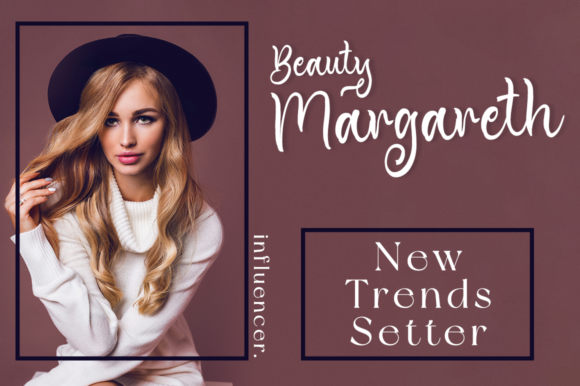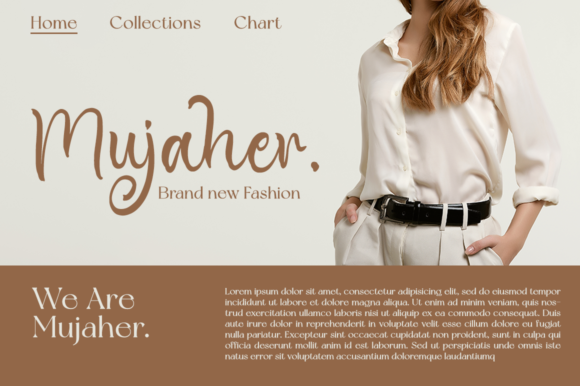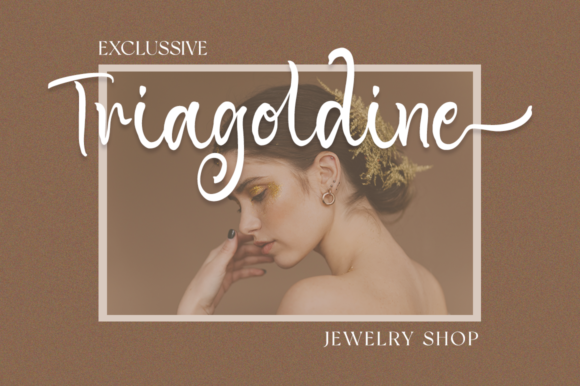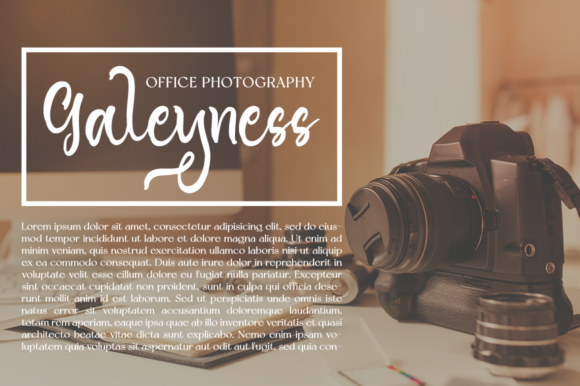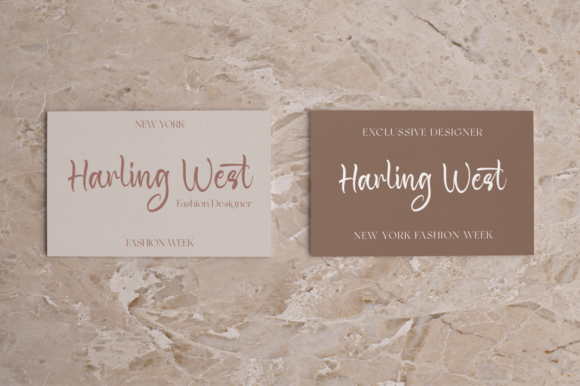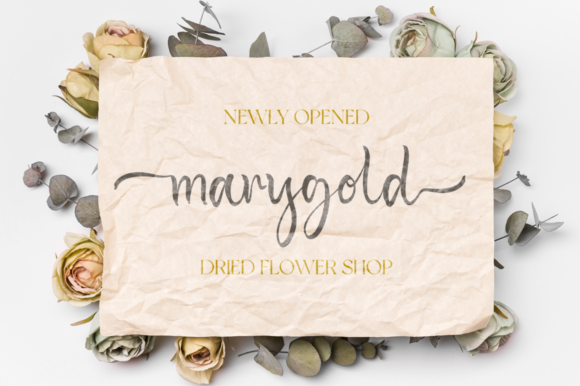
Introduction to Domiska Font
Have you ever stared at a blank page, eager to bring a creative project to life, only to be stumped by the perfect font? The search can be overwhelming, but what if I told you there’s a solution that’s elegant, refined, and effortlessly stylish? Meet the Domiska Font, a game-changer for designers seeking high-quality typography.
This beautiful script font is more than just a pretty face – it’s a versatile design resource that can elevate any creative project, from logos and branding to invitations and social media posts. With its modern look and feel, the Domiska Font is the perfect choice for designers who want to make a lasting impression. And the best part? It’s PUA encoded, making it easy to access all glyphs and swashes with just a few clicks.
Key Features of Domiska Font
- High-quality, unique font design suitable for creative projects and design resources.
- Designed with a clean and modern aesthetic, making it perfect for a variety of design projects.
Honest Review: Domiska Font
I recently had the chance to work with the Domiska Font, and I’m excited to share my honest thoughts on this design resource.
The Domiska Font is a high-quality font that I’ve found to be incredibly versatile. It’s perfect for any creative project that requires a unique touch.
- ✨ The font’s high-quality design makes it perfect for print materials, such as business cards and brochures.
- ✨ The font’s transparent background makes it easy to use in digital designs, like presentations and websites.
- ✨ The font’s wide range of weights and styles makes it easy to customize to fit any project’s needs.
- ⚠️ The font may not be suitable for projects that require a very modern or futuristic look.
- ⚠️ The font may not be as versatile as some other fonts on the market, but it still packs a punch.
Overall, I’m really impressed with the Domiska Font. It’s a great addition to any designer’s toolkit, and I highly recommend it for any creative project. Plus, it’s available for free download, making it an even more attractive option.
Domiska Font Overview
The Domiska Font is a high-quality design resource ideal for creative projects. It’s available for free download and features a transparent background, making it versatile for various applications.
Common Use Cases for Domiska Font
The Domiska Font is ideal for various creative projects, including logo design, branding, social media graphics, posters, and presentations.